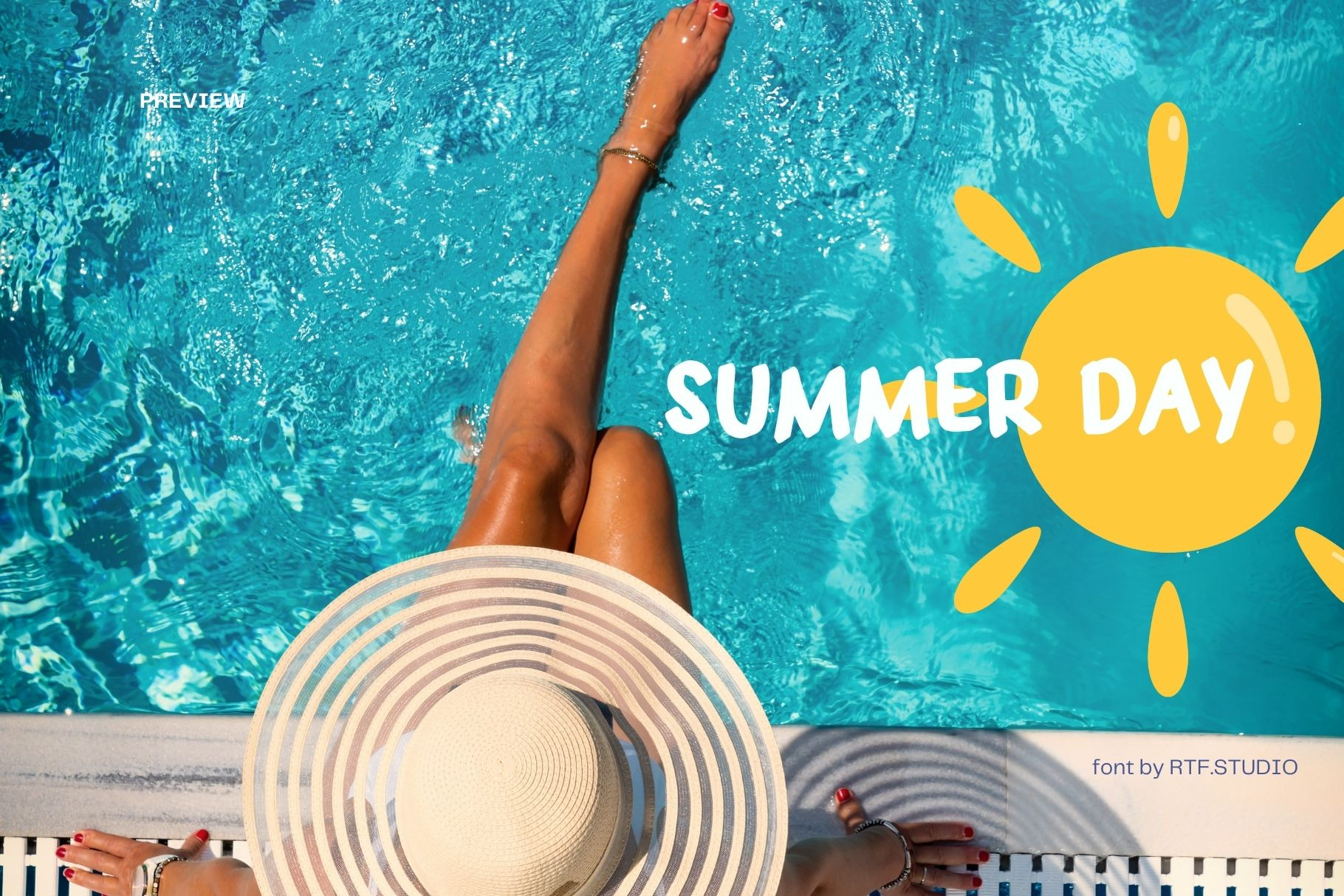
Defkos - Sans Serif Font
Defkos - Sans Serif Font with unique, funny and fun character. Use this display font to add a special cute touch to any design idea you can think of!
Great for use to :
- Logo,
- Sticker,
- Packaging design,
- Cricut Project,
- headlines,
- brand identity,
- t-shirt
- apparel industry,
- posters,
- magazines,
- books,
- YouTube,
- Instagram,
- websites or
- your creative design projects.